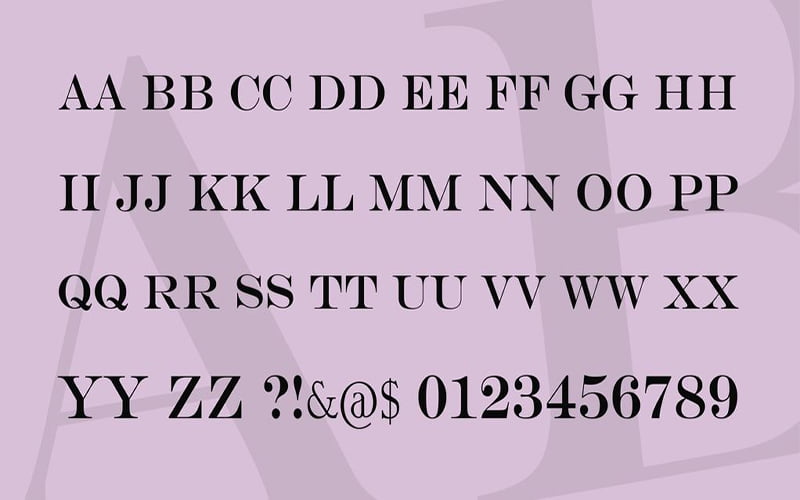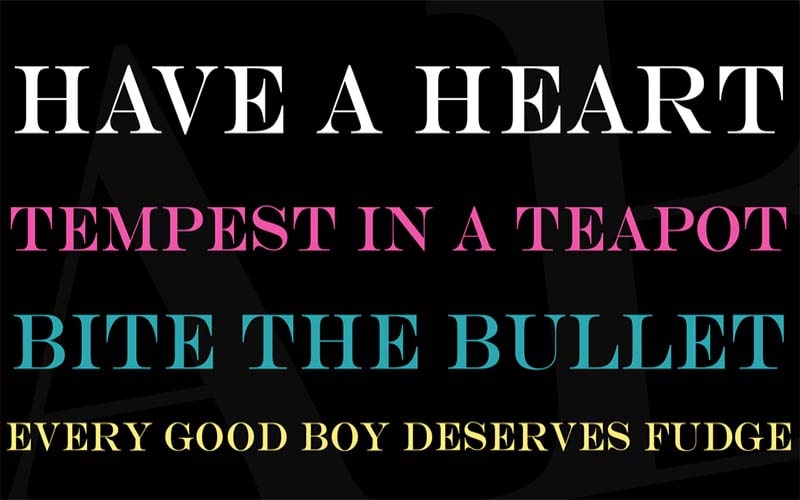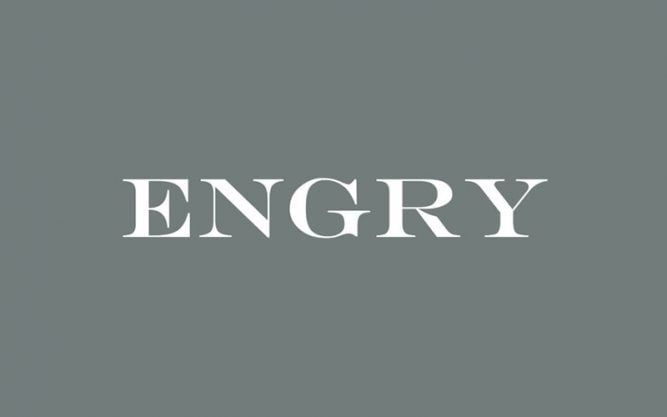
Engry is an excellent, serif, and display typeface family. The script font is based on Engraves Roman or originally designed by Nikita Glushkov. This font gives great vibes to the letters for fashion design projects.
The free typeface has come in only one unique weight including regular. The font is a fresh script typeface with unique and handmade characters. This font featuring is a unique, awesome, and beautiful appearance.
You can apply it in multiple designing operations. It is great for headlines, fashion designing letters, crafting book covers, posters, cards, banners textual arrangements, printing cards, flyers, and other displays.
This is a Unicode font family that possesses fascinating traits and supports multiple languages including Latin and Cyrillic. Ideal for the headline and wide exposure design purposes.
Engry Font
| Font Name: | Engry Font |
| Style: | Display, Serif, Typeface |
| Font Designer: | Nikita Glushkov |
The well-structured characters design easy legibility and the clean nature of the text builds it ideal for both headlines and text bodies for banners, websites, and slogans. It has a constant and smooth shape, making it great for huge point settings.
This display font consists of all caps, basic symbols, and numbers, supporting Latin and Cyrillic. Because each letter has the same thickness, it is easy to read the font on any screen.
The smart quality of this typeface is that it features great simplicity even on larger displays. I hope so you will like this partnership and will use it for updating and creating your projects.